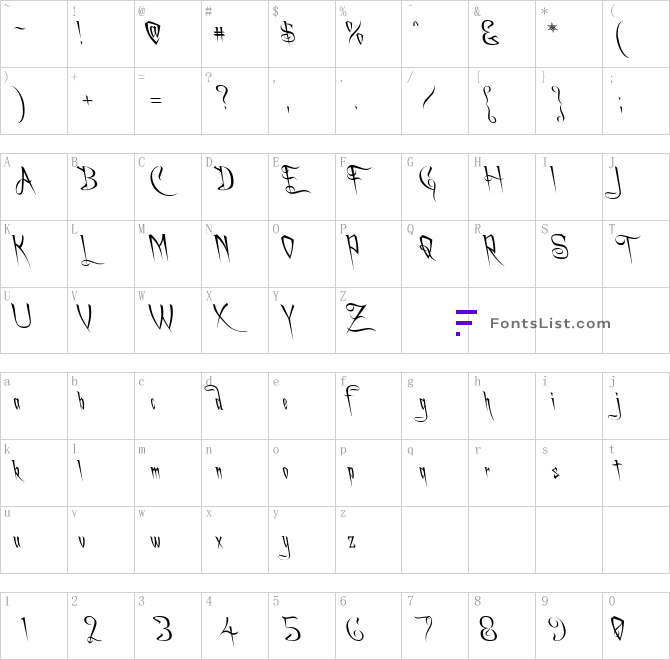
- Font Name:A Charming Font Leftleaning
A-Charming-Font-Leftleaning.ttf is a very beautiful artistic font, A-Charming-Font-Leftleaning.ttf is widely used in the design and printing of various books and pictures,A-Charming-Font-Leftleaning.ttf has a strong visual impact,A-Charming-Font-Leftleaning.ttf is a commonly used font in newspapers, magazines and books, and is used in posters, e-commerce Poster design, store design, logo design, font design and other fields.A-Charming-Font-Leftleaning.